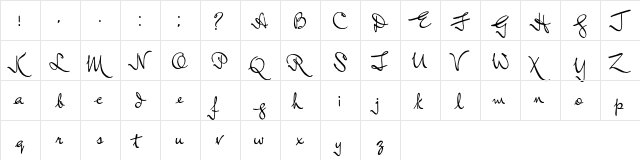
Lord Radcliff Regular
| Foundry | Paulo W, Intellecta Design |
Design Context for Lord Radcliff Typeface
Lord Radcliff is a composed and adaptable typeface that performs quietly and consistently across a wide range of design contexts.